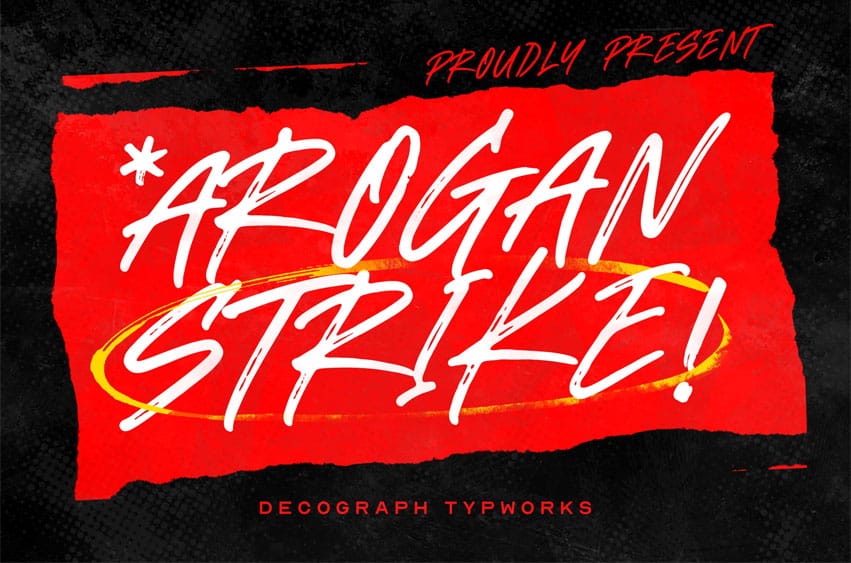
Arogan Strike Font is a fast, hand-painted brush script font with sharp strokes and an intense, dynamic rhythm. The letters feel like they were written in one confident motion, creating a sense of speed, power, and attitude in every word.
This font is perfect for sports and e-sports branding, music and festival posters, streetwear labels, YouTube thumbnails, and any design that needs a loud, rebellious statement. Use Arogan Strike for main titles, logos, and short quotes to instantly add drama and movement to your layouts. The font comes with a complete character set, including letters, numbers, and punctuation, so you can easily build striking typographic compositions for both print and digital projects.
Features: Energetic brush script style Natural handwritten texture with strong slant Perfect for bold titles, logos, and poster layouts Numbers and basic punctuation included Great legibility at large sizes Works beautifully on textured or solid backgrounds